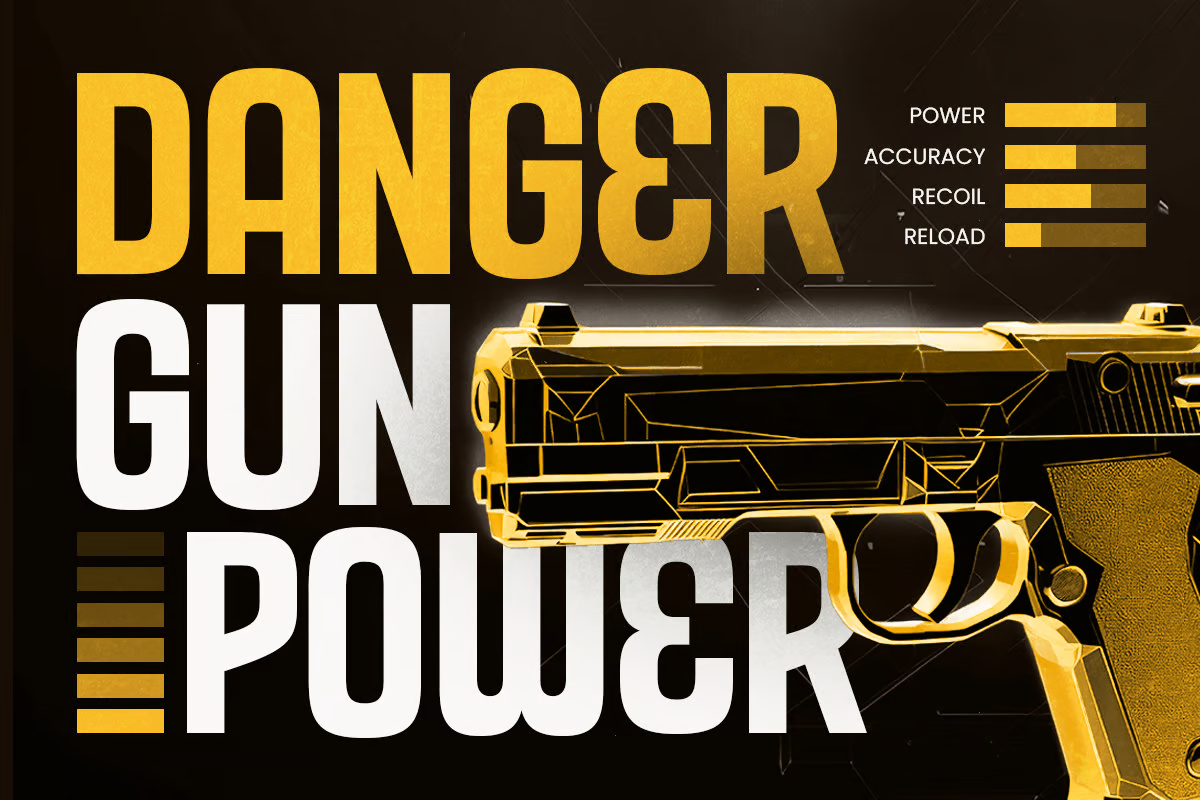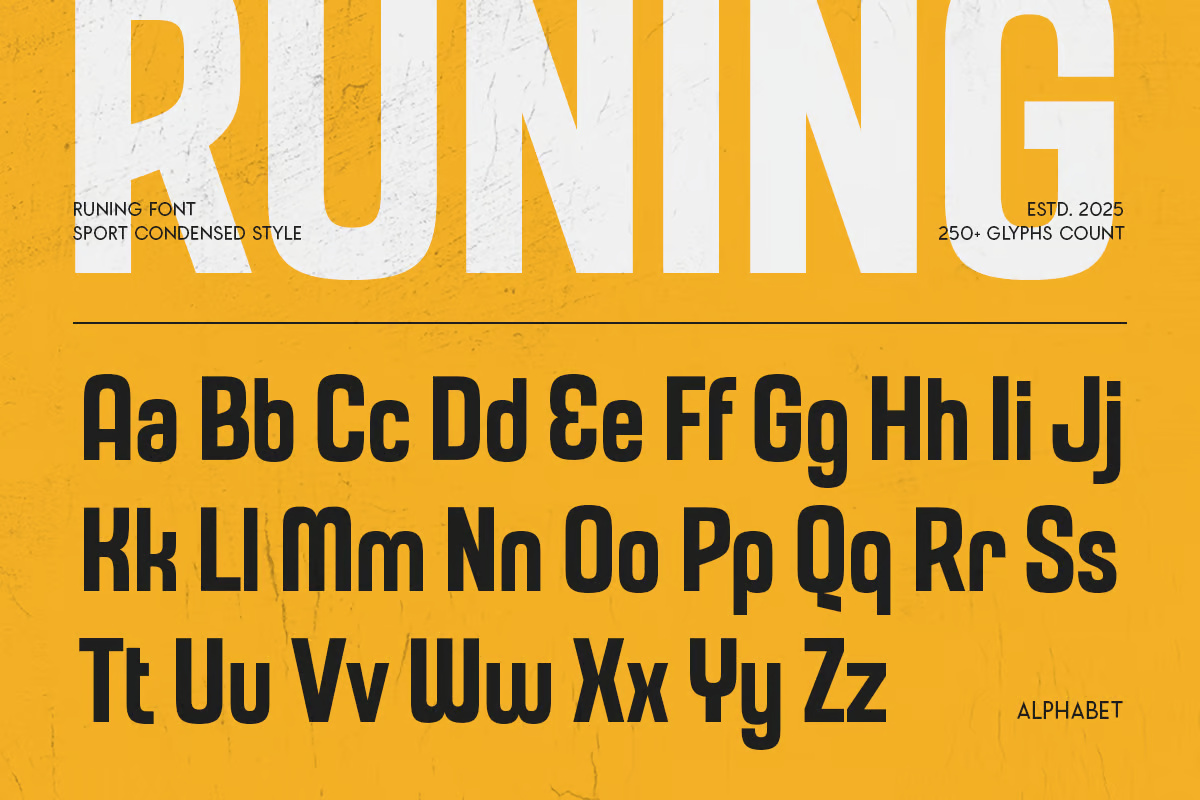
Runing is a high-energy sport condensed font designed for speed, strength, and impact. With its bold, narrow letterforms and sleek structure, this typeface is perfect for athletic branding, esports visuals, fitness gear, and adrenaline-fueled marketing campaigns. Whether you’re designing for a sports team, a dynamic event, or a high-performance product, Runing delivers a powerful and professional presence.
Inspired by the movement and intensity of competitive sports, Runing captures the essence of motion and action. Its sharp angles and tight spacing give a dynamic and aggressive look, making it ideal for racing posters, gym logos, game titles, and fitness apparel.
Runing Sport Condensed Sans-Serif Font